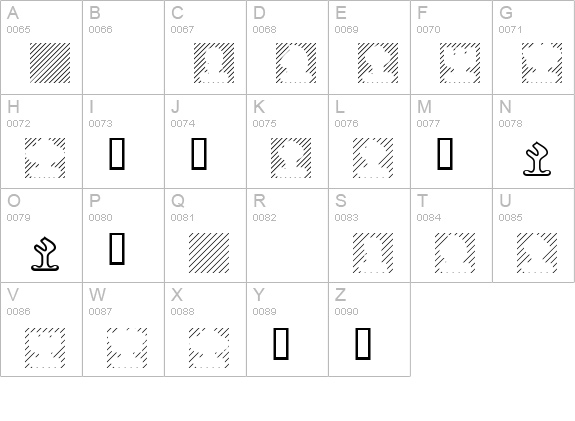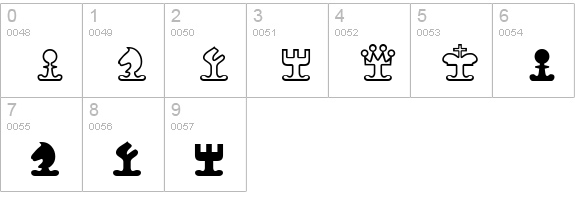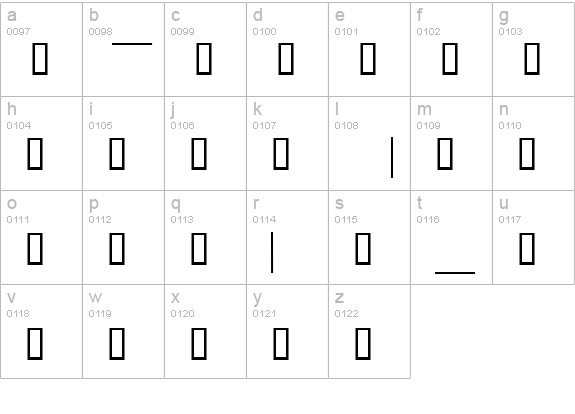
SeederChess Font Details
SeederChess is a captivating and versatile font that is perfect for any chess enthusiast or designer looking to add a touch of elegance and sophistication to their projects. With its unique and intricate design, this font effortlessly captures the essence of the chessboard, making it ideal for logos, posters, branding materials, and more. One of the standout features of SeederChess is its ability to convey a sense of strategy and intelligence. The bold and sharp edges of each letter mimic the calculated moves and precise positioning of chess pieces, giving your text a powerful and commanding presence. What sets SeederChess apart from other fonts is its remarkable versatility. Whether you're working on a modern, minimalist design or a more traditional and ornate project, this font seamlessly adapts to suit any style. Its clean lines and balanced proportions make it incredibly legible, ensuring that your message is easily conveyed to your audience. And the best part? SeederChess is available for free download at FontsMarket.com. That's right, you can get your hands on this stunning font without spending a dime. So why wait? Elevate your designs with the timeless beauty of SeederChess and let your creativity soar.